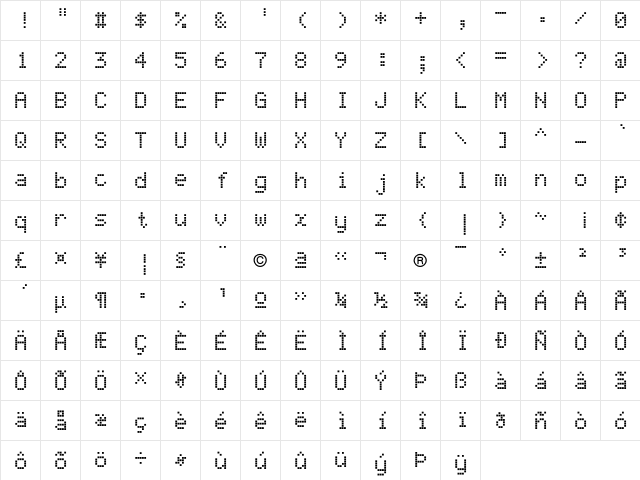
BubbledotICG FinePos
Design Context for BubbledotICG Typeface
BubbledotICG is rooted in pixel-grid construction, making it a natural fit for game UI, retro computing aesthetics, and digital nostalgia projects.
A natural choice for retro game titles, chiptune music branding, 8-bit UI, and digital nostalgia projects.
Pro Tip: Pair BubbledotICG with flat colour palettes and simple geometric UI elements to reinforce its digital aesthetic.